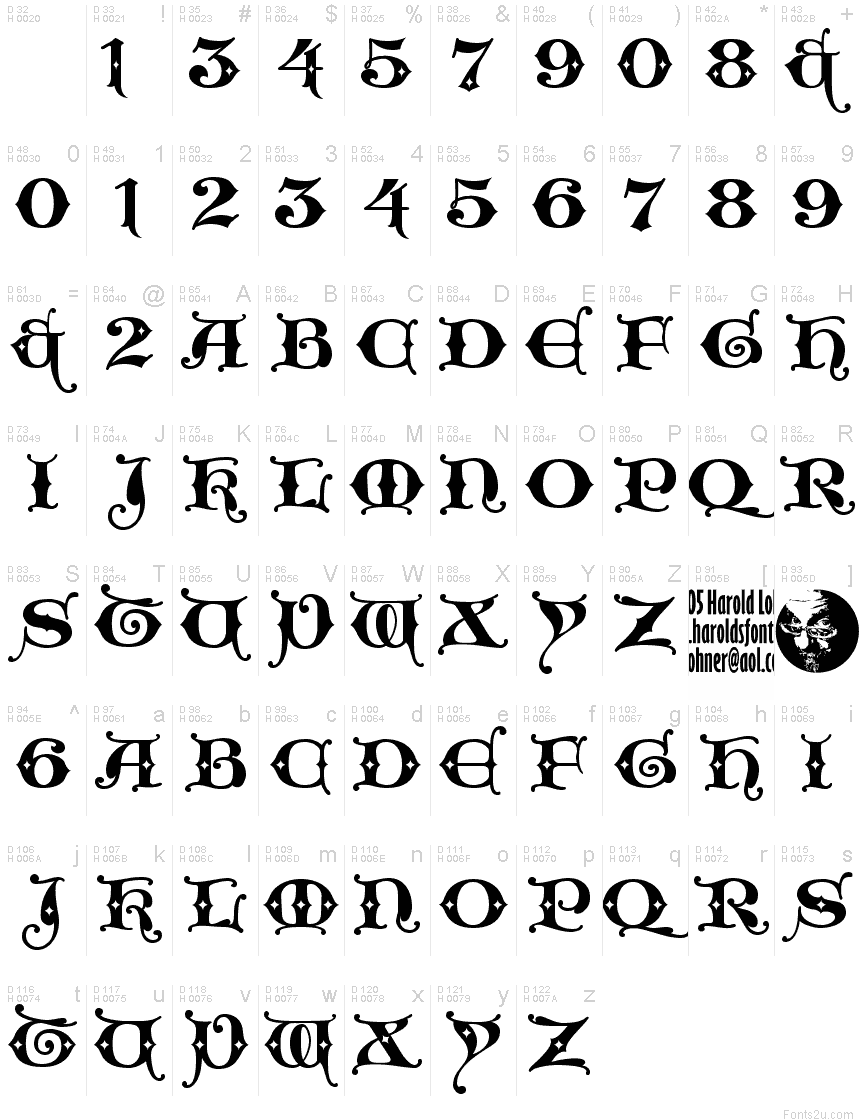
King Xmas by Harold Lohner of Harold's Fonts is a free ornamental display font with swelling strokes and extravagant curled flourishes. Its letterforms mix broad, rounded masses with sharp points, coiled interiors, and long hooks that give the line a fanciful storybook air.
Holiday invitations are its clearest setting, especially for celebrations with a playful, old-fashioned theme. The same theatrical shapes suit gift packaging and children's publishing. On posters, the repeated curls can echo ribbons, candy swirls, or vines.